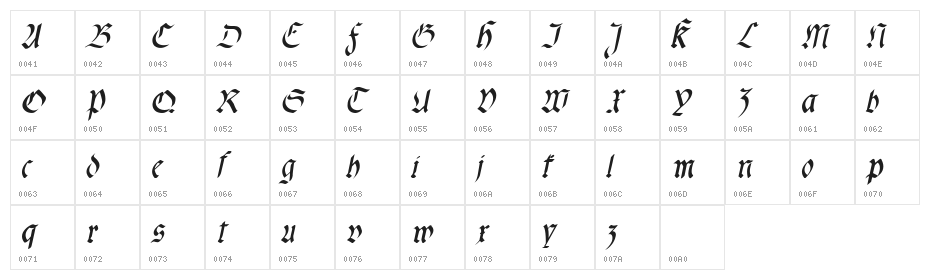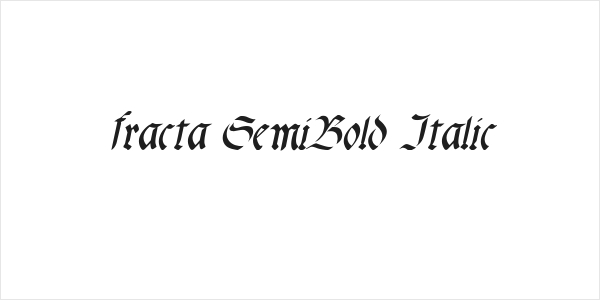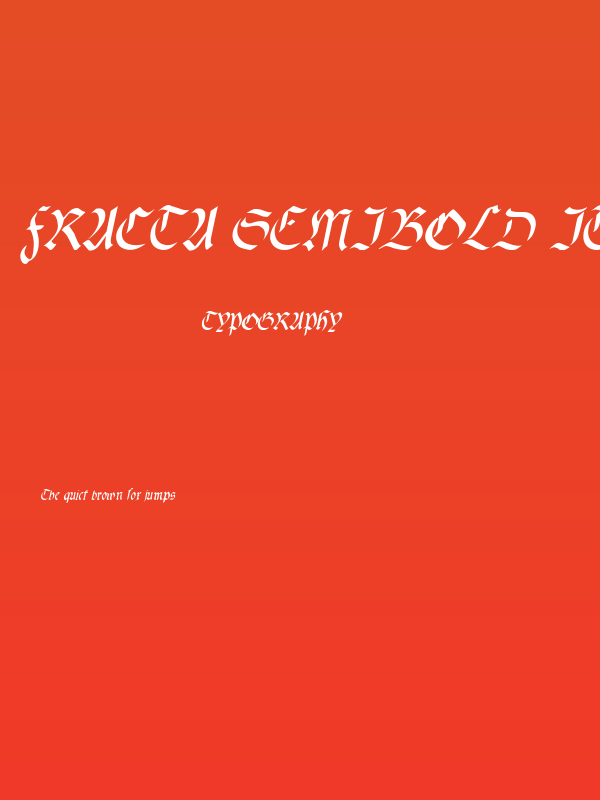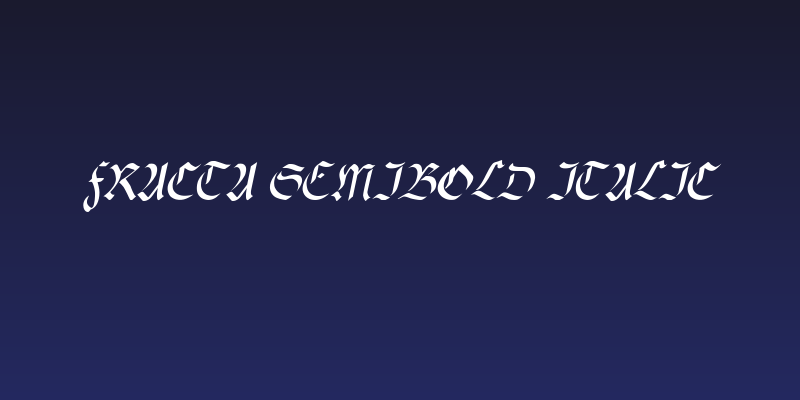
fracta SemiBold Italic Font
fracta SemiBold Italic Description
This font exhibits a traditional blackletter style, characterized by its intricate and angular letterforms. The strokes are bold and pronounced, with a distinct slant that adds a dynamic and italicized appearance. The uppercase and lowercase letters maintain a consistent style, with sharp serifs and decorative elements that enhance its historical and formal aesthetic. The numerals and special characters are designed to match the overall gothic theme, making it suitable for projects that require a touch of elegance and antiquity.
| Proposed Projects | Ideal for historical documents, certificates, wedding invitations, or any design needing a classic and formal touch. |